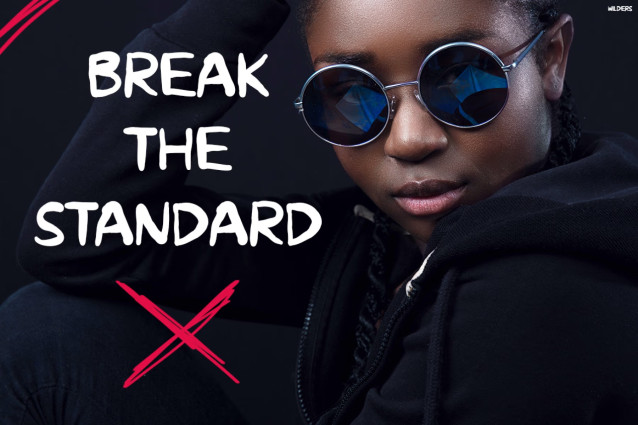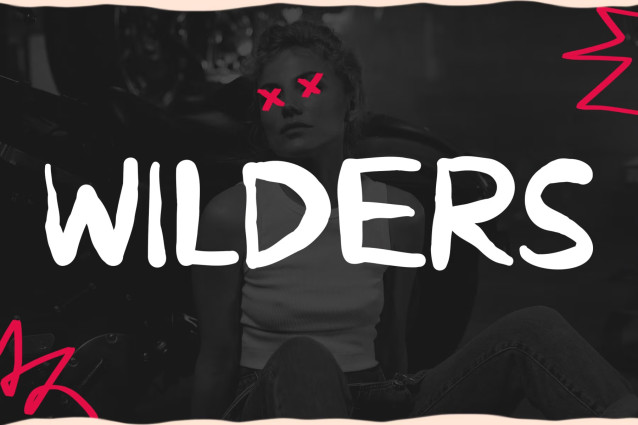
Wilders Font
Wilders delivers a bold, rebellious vibe with its raw, hand-drawn strokes and urban attitude. Moreover, its rough edges and expressive letterforms create an authentic street-art aesthetic that instantly stands out. In addition, the imperfect shapes add character and movement, so every word feels alive and unapologetic. As a result, this font becomes a powerful visual tool for designs that demand attention.
Graffiti Font Wilders captures the spirit of underground culture and modern street style. For example, it shines in edgy posters, bold apparel graphics, album covers, and social media campaigns. Furthermore, its strong visual presence ensures readability while still keeping a gritty, expressive tone. Not only that, but the font pairs perfectly with dark backgrounds, high-contrast visuals, and experimental layouts. Consequently, your designs will look more dynamic, fearless, and full of attitude.